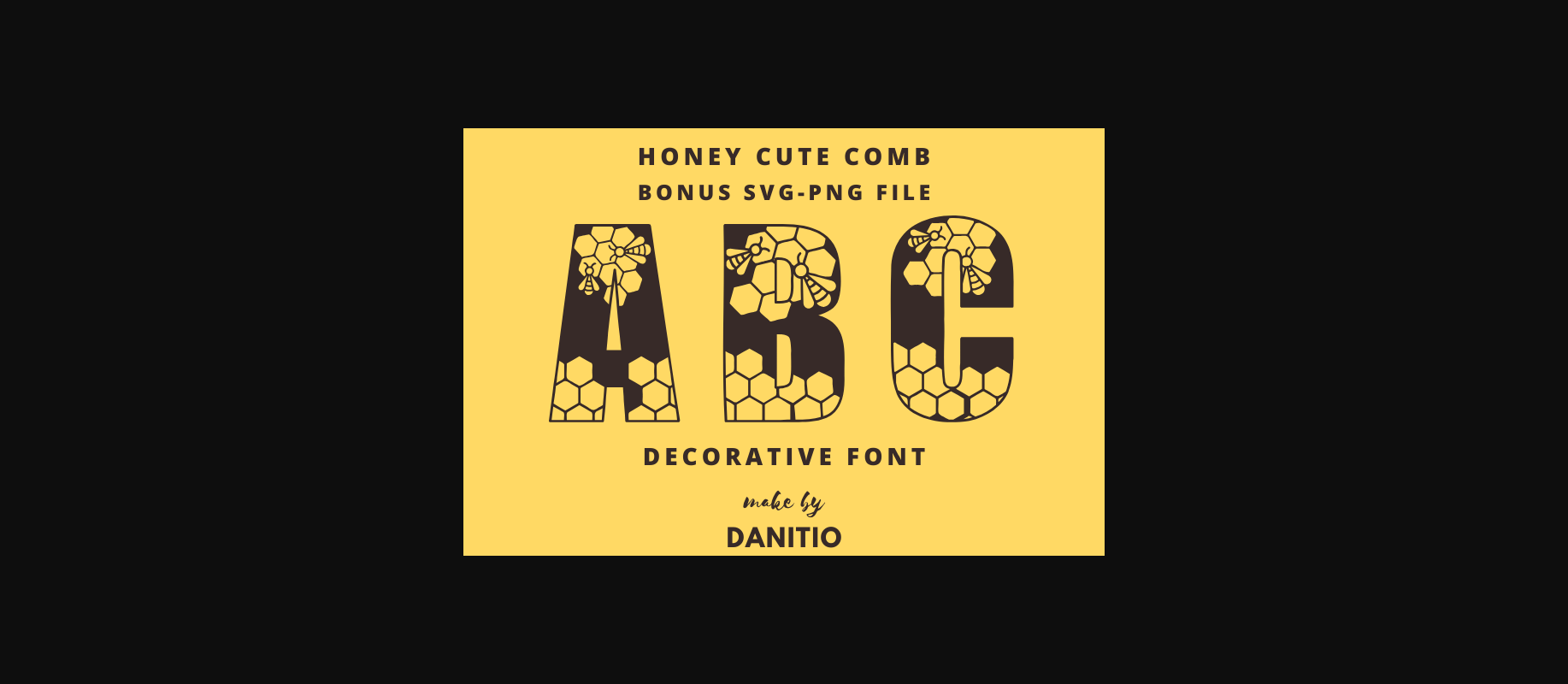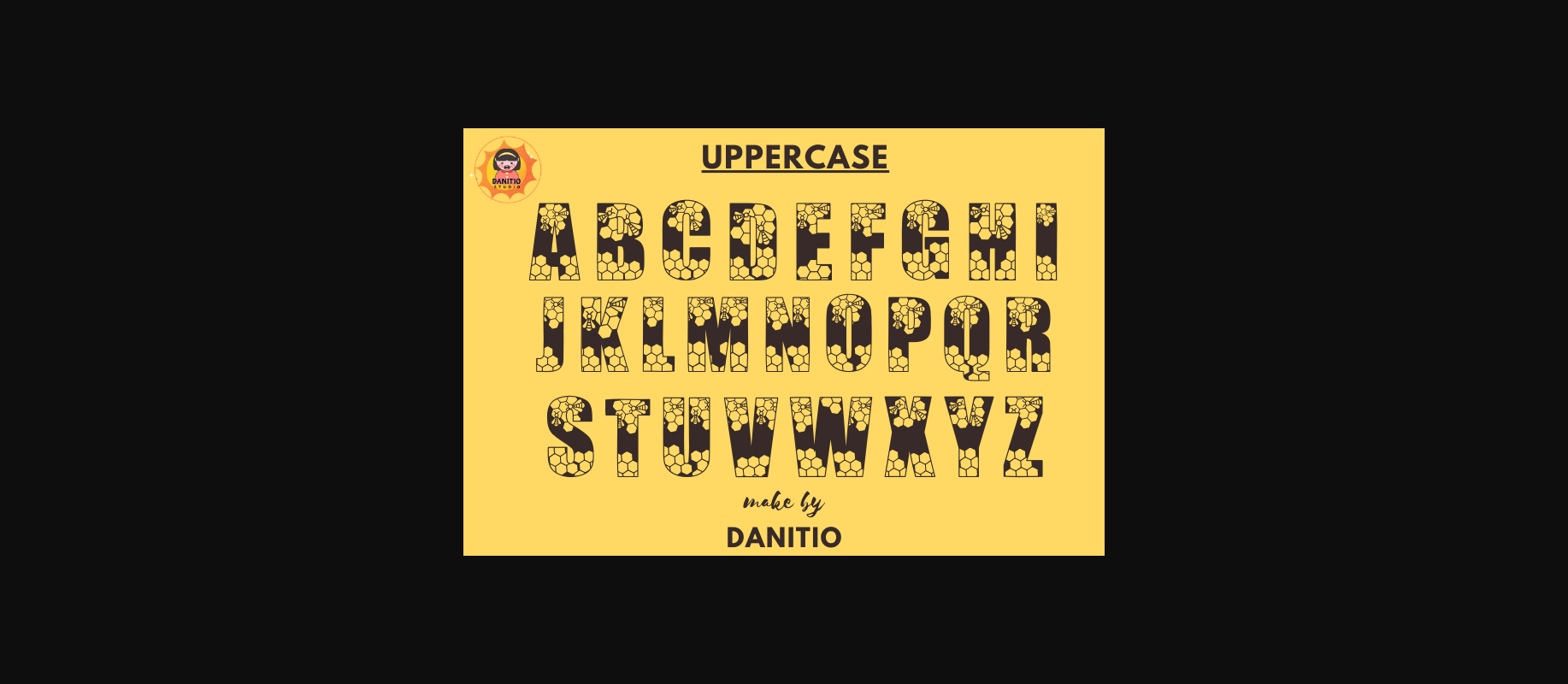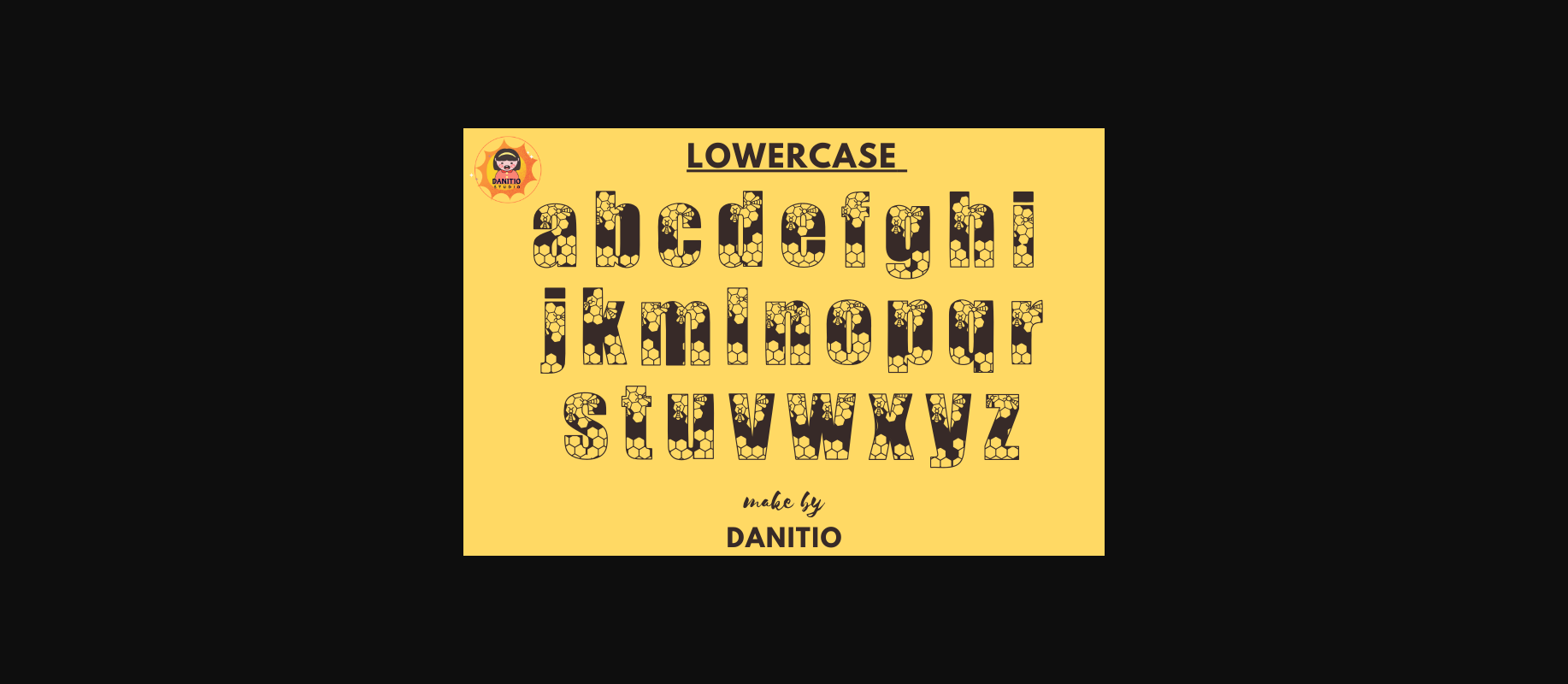
About Honey Cute Comb Font
Honey Cute Comb is a delightful decorative font that radiates sweetness and charm. Its playful curls and adorable comb motifs evoke a whimsical feel, perfect for invitations, greeting cards, and children’s book covers. With its warm, inviting style, Honey Cute Comb adds a touch of honeyed magic to any design.